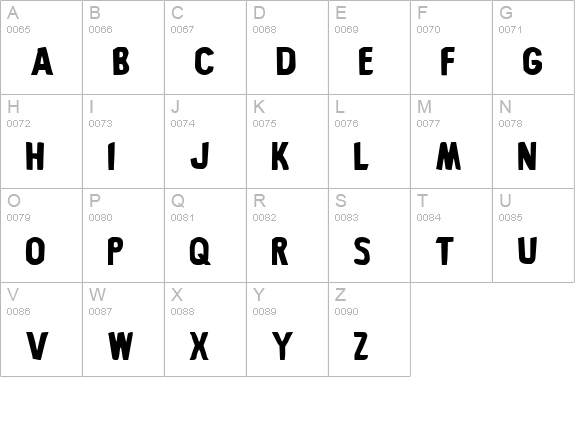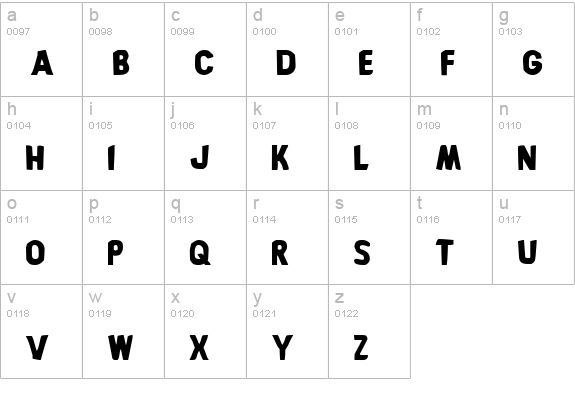
Bronic Font Details
Bronic font is a versatile and modern typeface that combines sleek lines with a touch of elegance. This font is perfect for a wide range of design projects, from branding to web design to print materials. Its clean and readable characters make it a great choice for both headings and body text. What sets Bronic font apart is not just its stylish design, but also the fact that it is available for free download at FontsMarket.com. This means that you can easily access this high-quality font without breaking the bank. Whether you are a seasoned designer looking to add a new font to your collection or a beginner exploring typography for the first time, Bronic font is a fantastic choice that won't cost you a penny. Download it today and elevate your designs with this beautiful and free typeface.